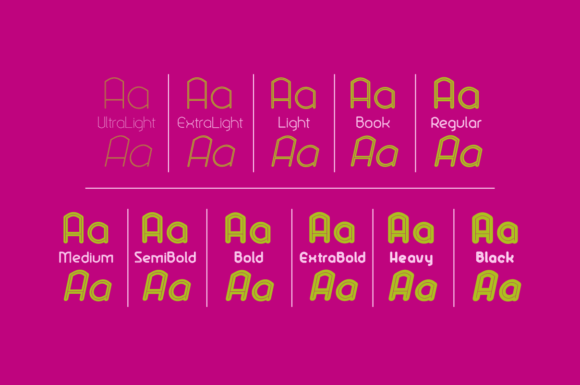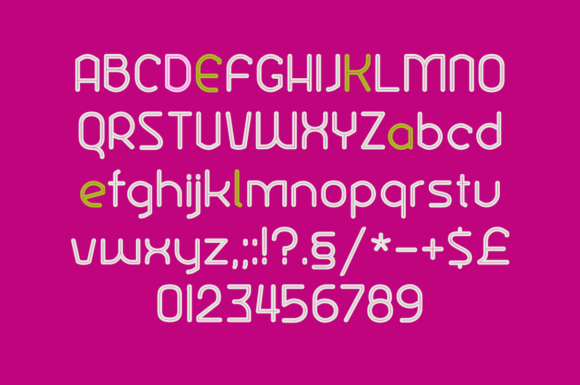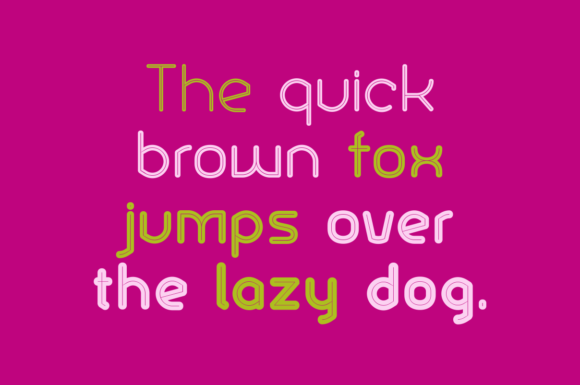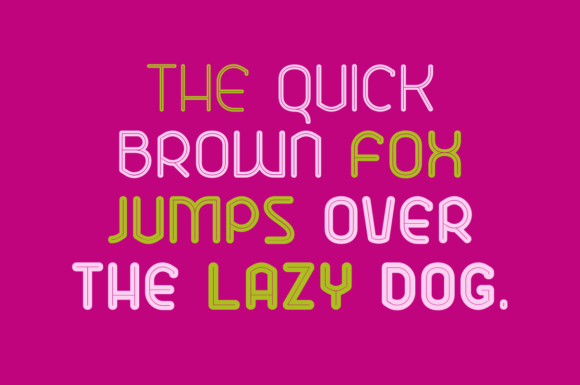
Introducing Ekela Font: The Ultimate Sans Serif for Creative Projects
Are you tired of using the same old fonts for your design projects? Look no further than Ekela Font, a minimal and neat sans serif font that’s perfect for adding a touch of modernity to your creative ideas. With its clean lines and simple design, Ekela Font is incredibly versatile and can be matched to an incredibly large set of projects. In this article, we’ll explore the features and benefits of Ekela Font, and show you how it can make your designs stand out.
What is Ekela Font?
Ekela Font is a sans serif font that’s designed to be simple, yet effective. Its minimal design makes it perfect for use in a wide range of projects, from digital designs to print materials. The font is highly legible, even at small sizes, making it ideal for use in body text. Additionally, its clean lines and simple shapes make it perfect for use in headings and titles.
Key Features of Ekela Font
- Minimal Design: Ekela Font has a simple and minimal design that makes it perfect for use in a wide range of projects.
- High Legibility: The font is highly legible, even at small sizes, making it ideal for use in body text.
- Clean Lines: The font’s clean lines and simple shapes make it perfect for use in headings and titles.
- Versatile: Ekela Font can be matched to an incredibly large set of projects, making it a great addition to any designer’s toolkit.
Benefits of Using Ekela Font
So why should you choose Ekela Font for your design projects? Here are just a few benefits of using this versatile font:
- Easy to Read: Ekela Font is highly legible, making it easy for readers to quickly scan and understand your content.
- Modern Look: The font’s clean lines and simple design give it a modern look that’s perfect for contemporary designs.
- Flexible: Ekela Font can be used in a wide range of projects, from digital designs to print materials.
- Time-Saving: With Ekela Font, you can create professional-looking designs in no time, saving you time and effort.
How to Use Ekela Font in Your Designs
Using Ekela Font in your designs is easy. Here are a few tips to get you started:
- Pair it with Other Fonts: Ekela Font can be paired with other fonts to create a unique and interesting design.
- Use it in Headings and Titles: The font’s clean lines and simple shapes make it perfect for use in headings and titles.
- Experiment with Different Sizes: Ekela Font is highly legible, even at small sizes, making it ideal for use in body text.
Ekela Font is a versatile and modern sans serif font that’s perfect for adding a touch of sophistication to your design projects. With its clean lines, simple design, and high legibility, it’s ideal for use in a wide range of projects, from digital designs to print materials. Whether you’re a designer, crafter, or DIY enthusiast, Ekela Font is a great addition to your toolkit. So why not give it a try and see how it can make your designs stand out?